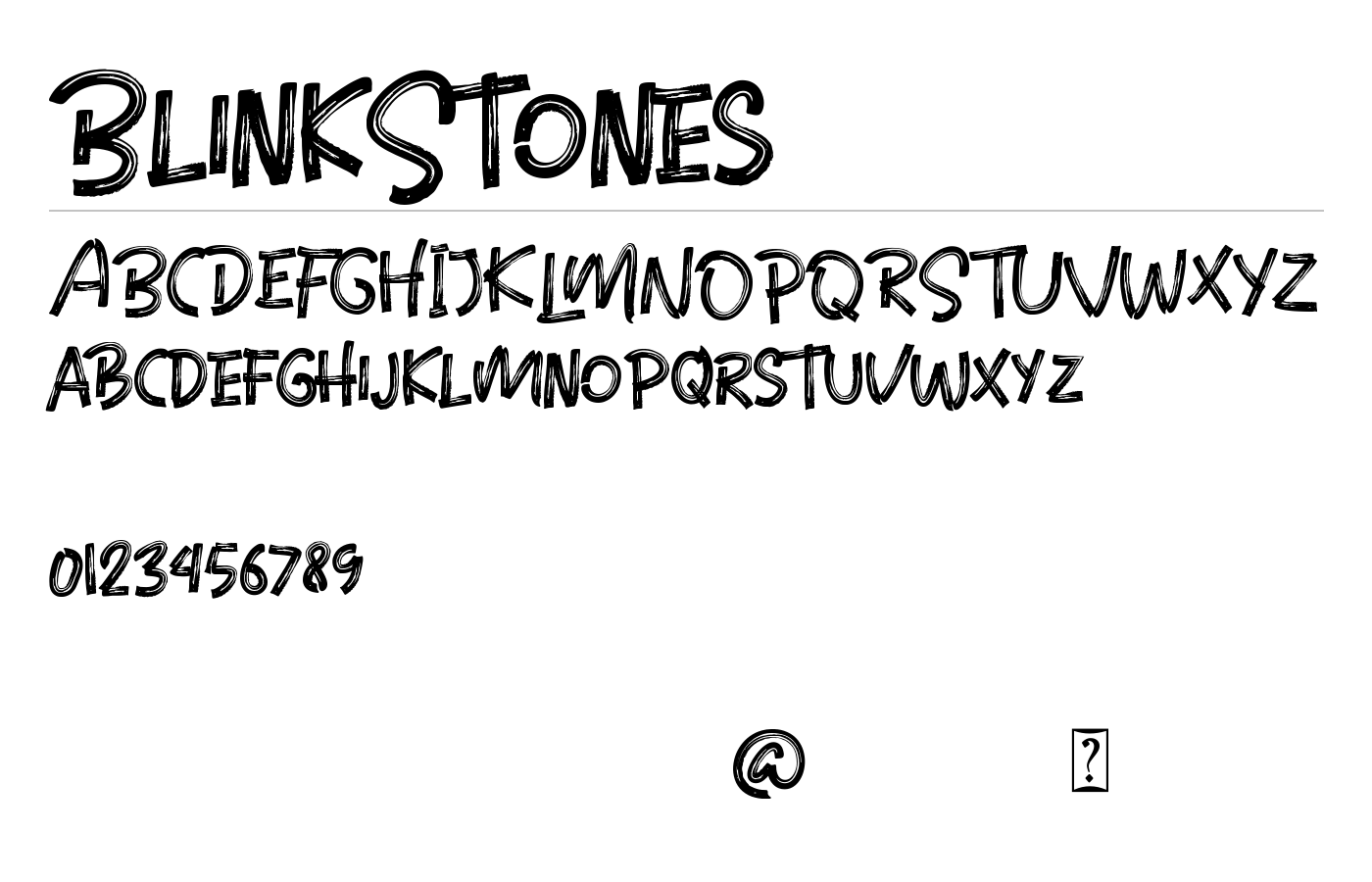
BlinkStones is a bold, hand-drawn sans serif font with a lively, textured stroke that gives it a playful and artistic personality. Its irregular, brush-like lines and tall x-height make it eye-catching and perfect for creative, informal designs like posters, logos, and branding that want to convey energy and uniqueness. This font works best in display settings where its quirky, handcrafted style can shine.
BlinkStones Font
About BlinkStones Font
| Font family | BlinkStones Font |
| Designer | Lettersiro 2018 |